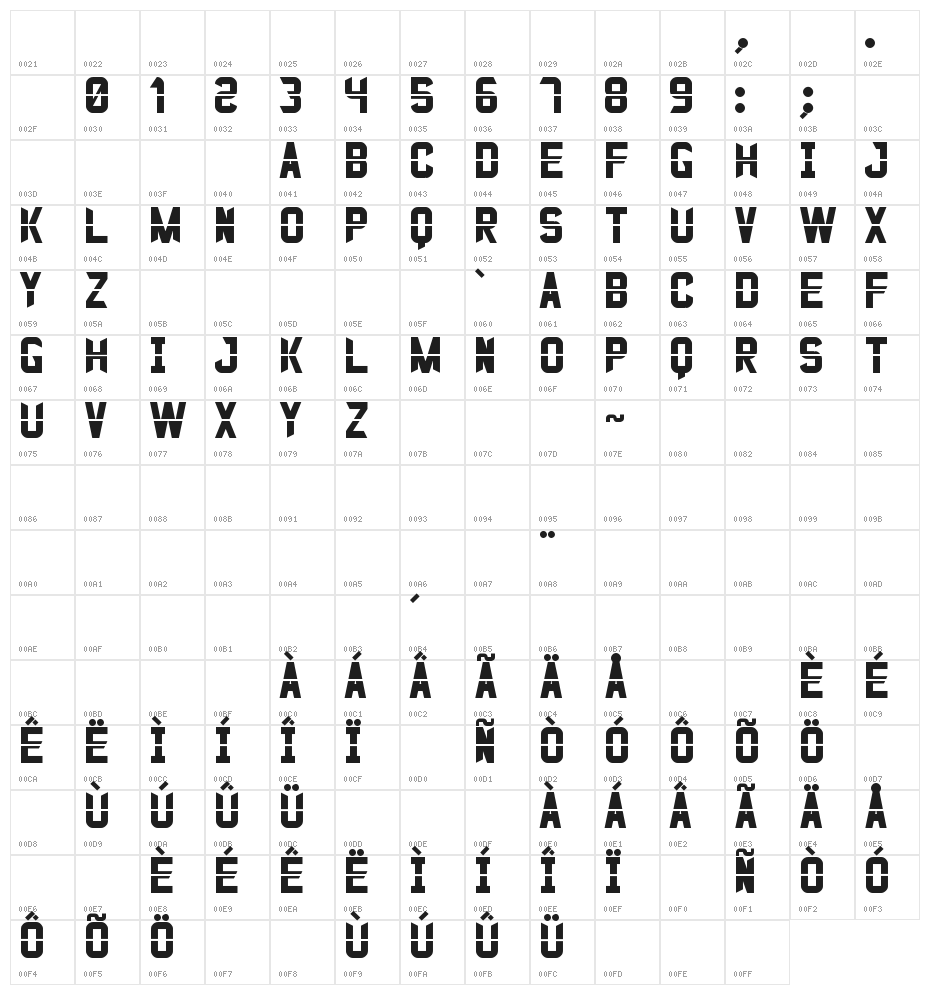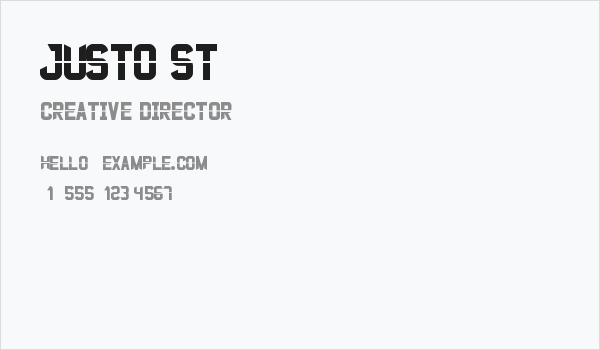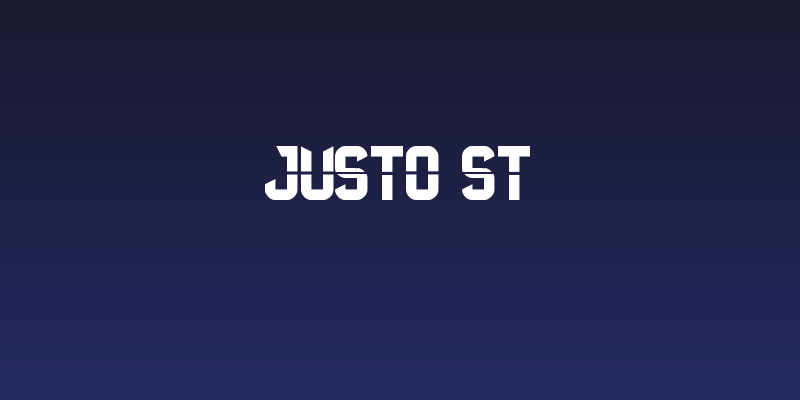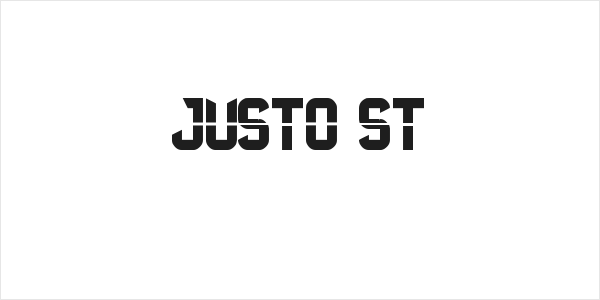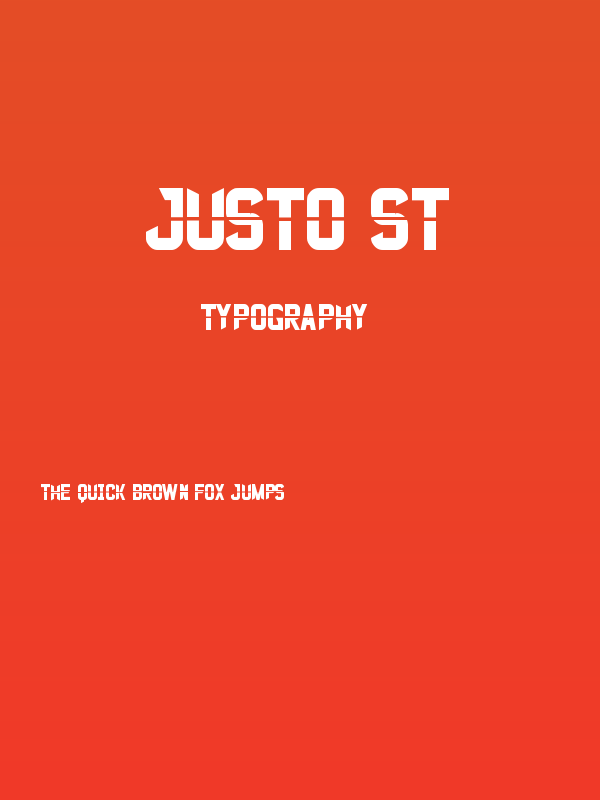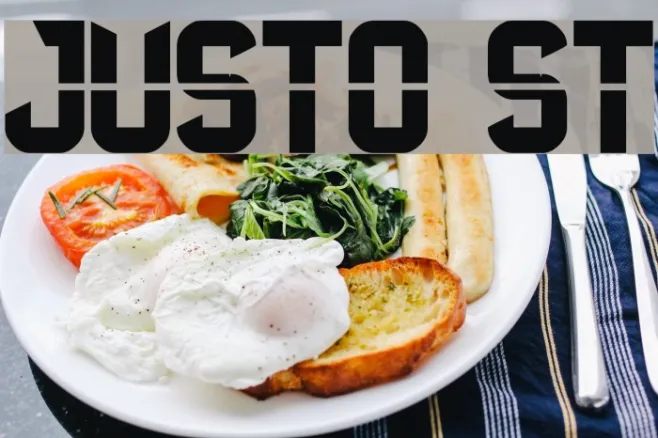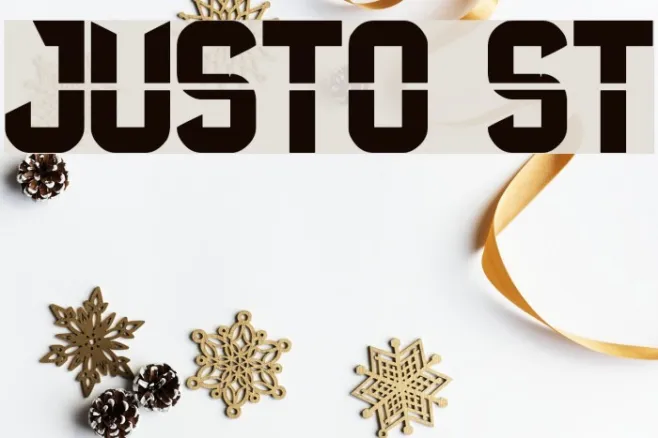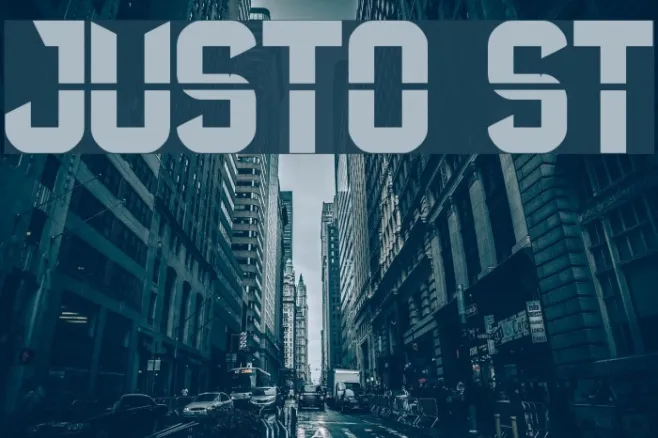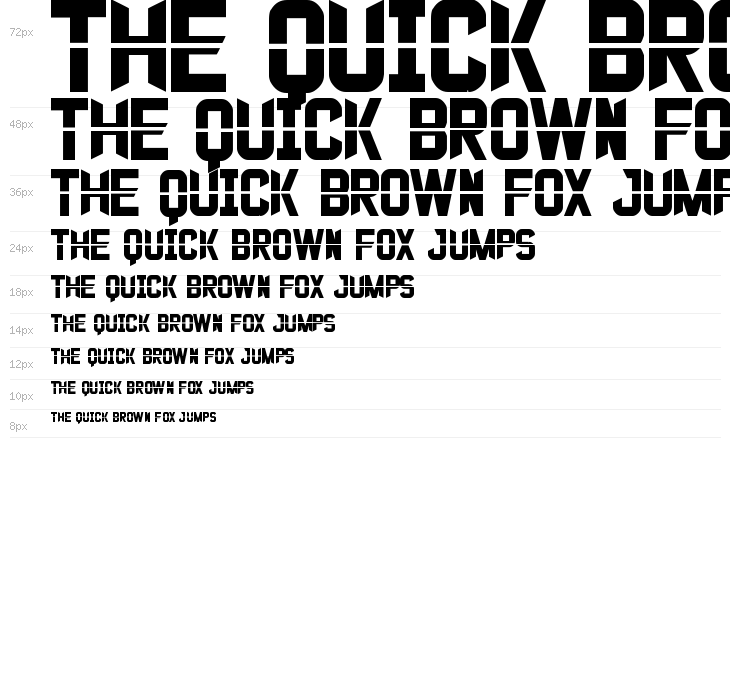
Justo St Font
Justo St Description
This font features a bold, geometric design with a distinct, modern aesthetic. The characters are constructed with sharp angles and straight lines, creating a futuristic and industrial feel. The uppercase letters are particularly striking, with a uniform height and width that gives a sense of balance and stability. The numbers and special characters maintain this cohesive style, ensuring versatility across different uses. The font's unique cut-out sections add an element of intrigue and visual interest, making it ideal for projects that require a strong, impactful presence.
| Proposed Projects | Ideal for branding, posters, headlines, and any design requiring a strong, modern impact. |